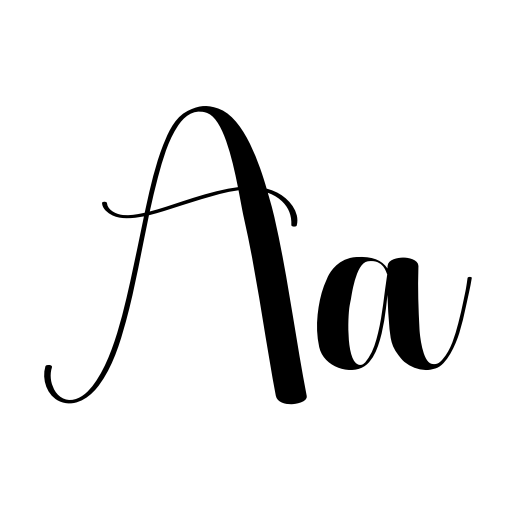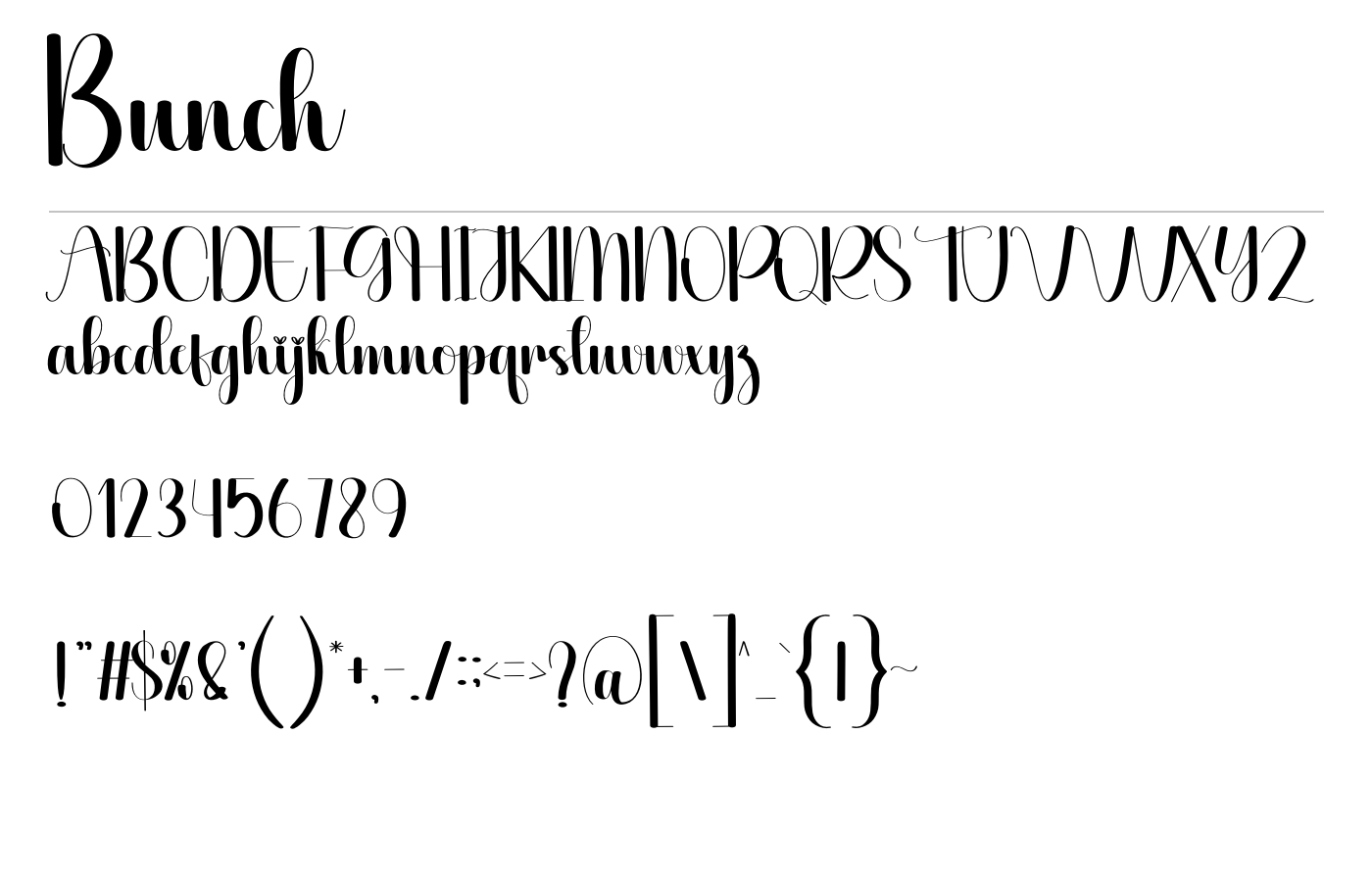
Bunch Font is a playful and elegant script typeface featuring tall, slender letterforms with a mix of thick and thin strokes that create a rhythmic contrast. Its whimsical, hand-drawn style with delicate swashes and curls makes it perfect for creative branding, invitations, and stylish headlines that need a touch of charm and personality. This font shines in designs that embrace a fun yet sophisticated vibe, ideal for fashion, lifestyle, and boutique projects.
Bunch Font